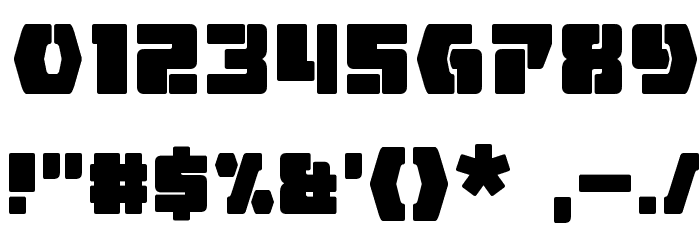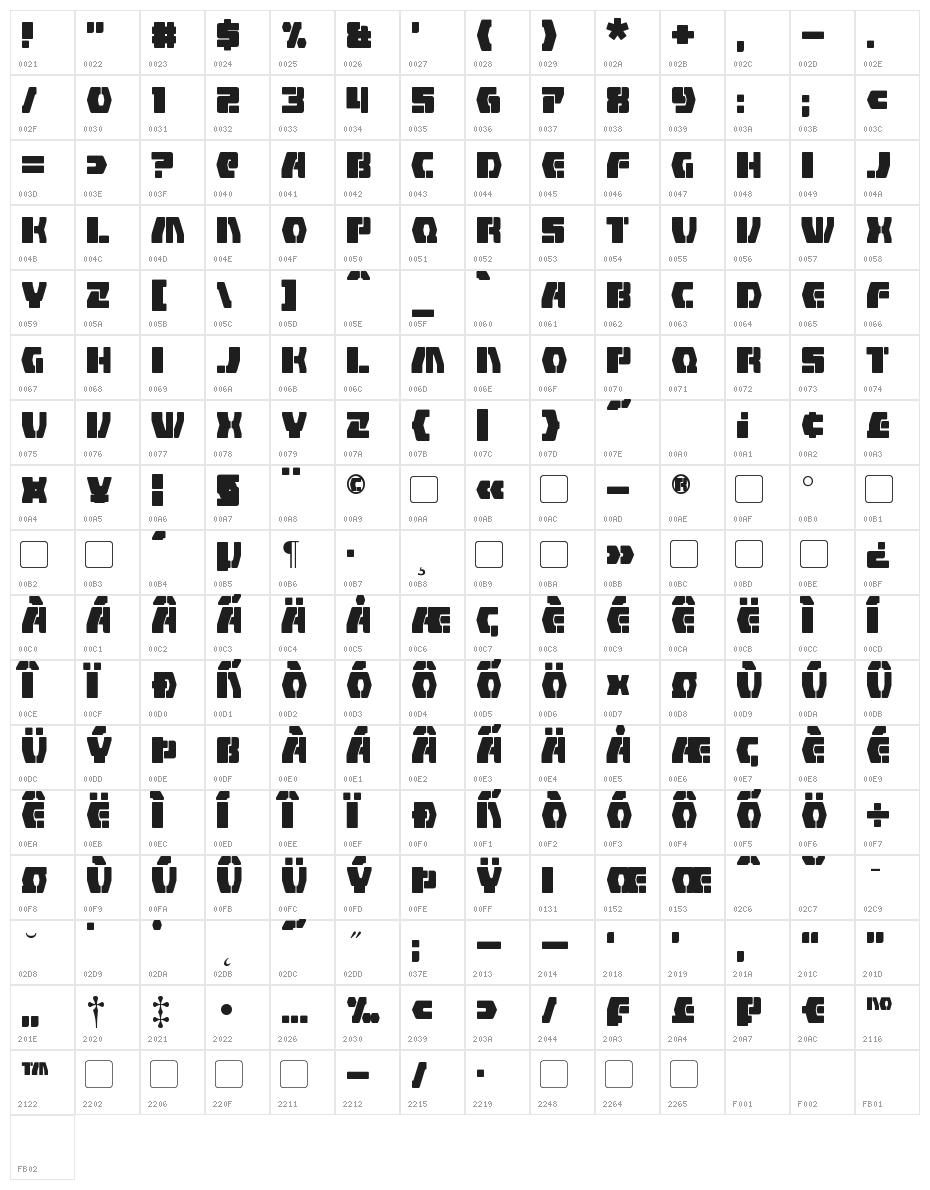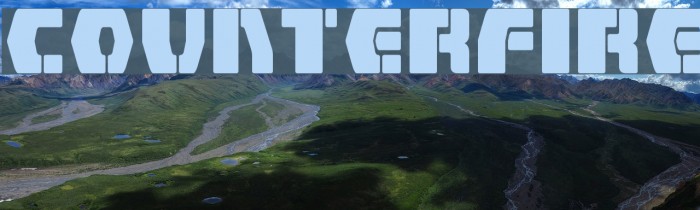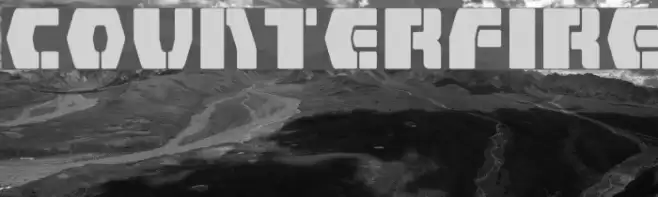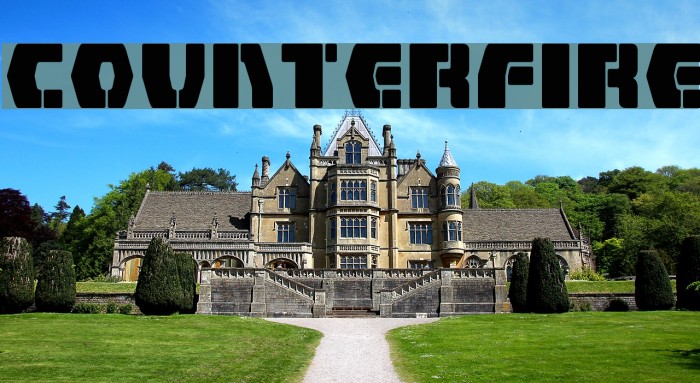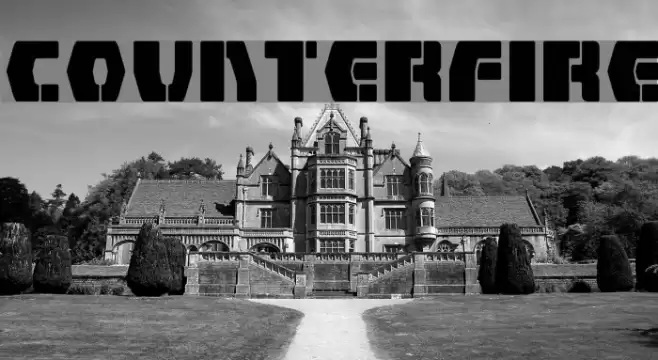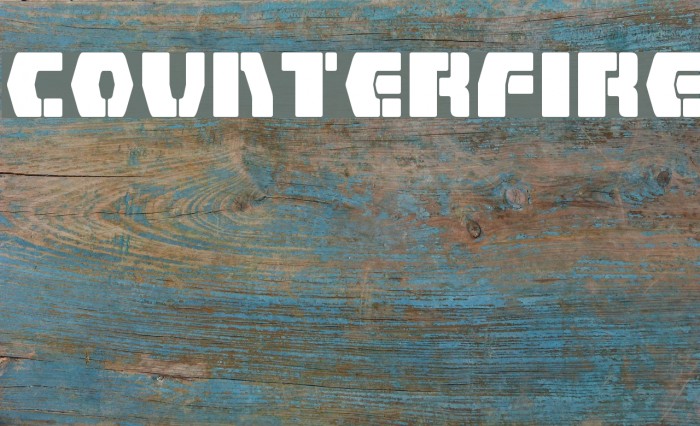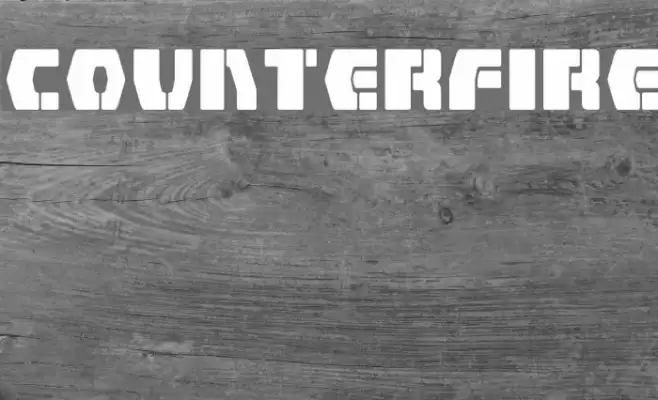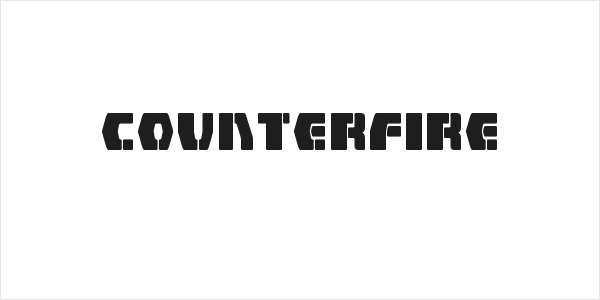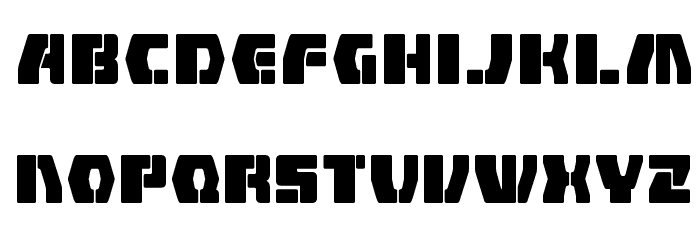
Counterfire Font
Counterfire Description
This bold, geometric font features a distinctive, blocky style with sharp angles and a futuristic feel. The characters are uniformly wide, creating a strong visual impact. The uppercase letters are particularly striking, with unique cutouts and angular shapes that give the font a modern, industrial look. The numbers and special characters maintain this aesthetic, ensuring consistency across all glyphs. The font's heavy weight and solid presence make it ideal for attention-grabbing designs.
| Proposed Projects | Ideal for posters, logos, video game graphics, and any project requiring a strong, modern aesthetic. |